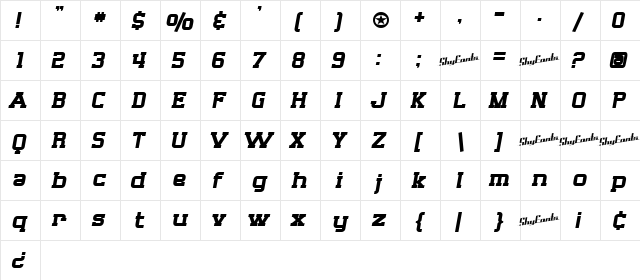
SF Big Whiskey Bold
Design Context for SF Big Whiskey Typeface
SF Big Whiskey offers clean, dependable letterforms without strong stylistic allegiance, making it a practical choice for designers who need flexibility. Its bold stroke weight gives it real presence on the page.